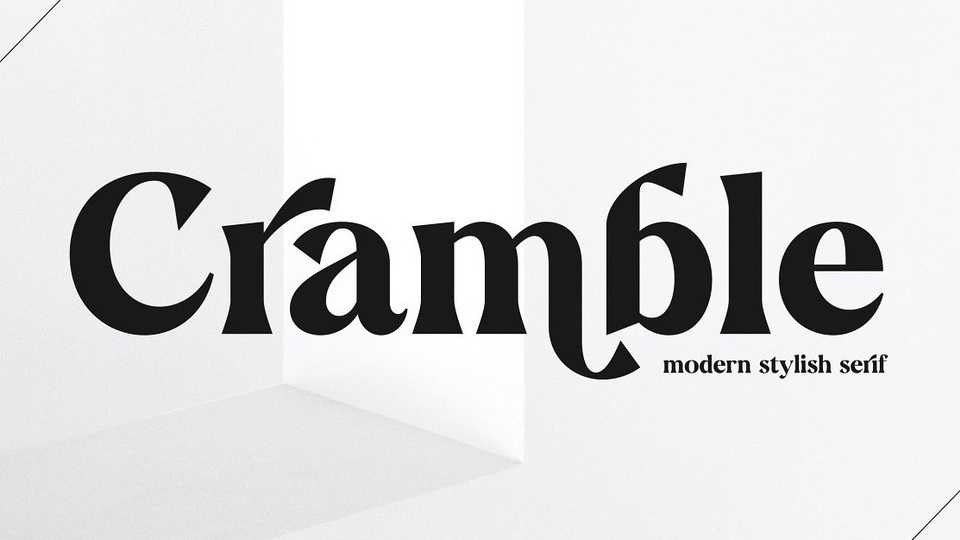
Download Cramble font, a serif typeface designed to bring a modern and clean feel. Cramble is a versatile typeface with a simple yet elegant approach.
Designer: Letteralle Studio